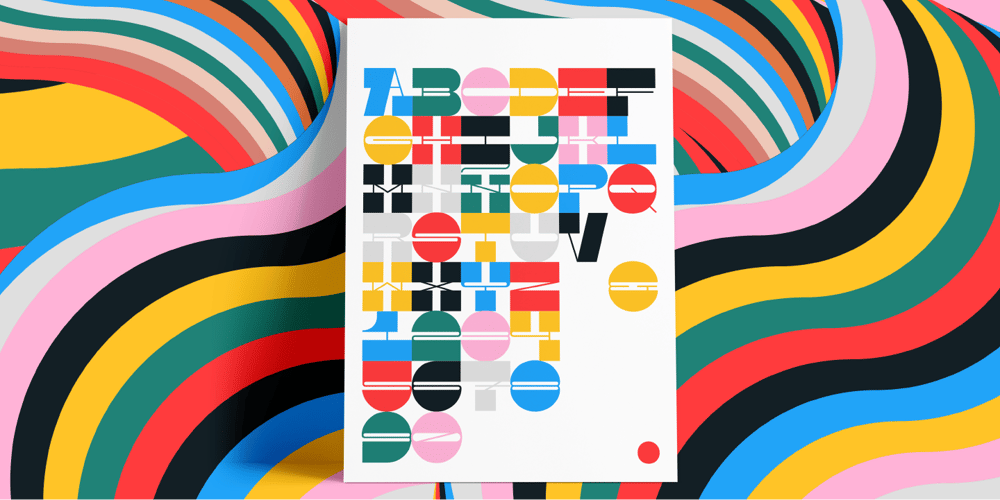
Pata Slab Font Family was designed by Rodrigo Fuenzalida, Alexander Wright, Michelle Benaim Steiner and published by In-House International. Pata Slab contains 1 styles and family package options. Pata Slab: the ultra-heavy optimism we all need in 2020 Pata Slab is the type equivalent of a catwalk stomp down a city sidewalk, a font that’s assertive, funky and more than a little sexy. Named after a colloquialism for ‘feet’, Pata features ultra-heavy slabs and contrasting hairline centers that rise from its chunky footprint. The resulting, retro-inspired vertiginous curves add instant attitude to any design. Developed in 2020, Pata is a type of its time.Pata is all upside, as it is a typeface with no descenders — one that elevates all characters to grow upward from the baseline (because, c’mon, we could all use something uplifting right now!) All uppercase characters were built to fit precisely inside a square, so they’re all the same width and height. The lowercase alphabet, eñes, cedillas, punctuation, numbers and symbols all follow the same height restrictions. Despite all that confinement, Pata sports standard-height terminals that connect seamlessly so there’s nearly endless options for modular ligatures. The upshot of all this meticulous awesomeness is that laying out, customizing and stacking text super simple.Pata Slab was created by In-House International, designed Alexander Wright in collaboration with Rodrigo Fuenzalida. It’s available for Opentype format (.otf) compatible with Mac and PC.